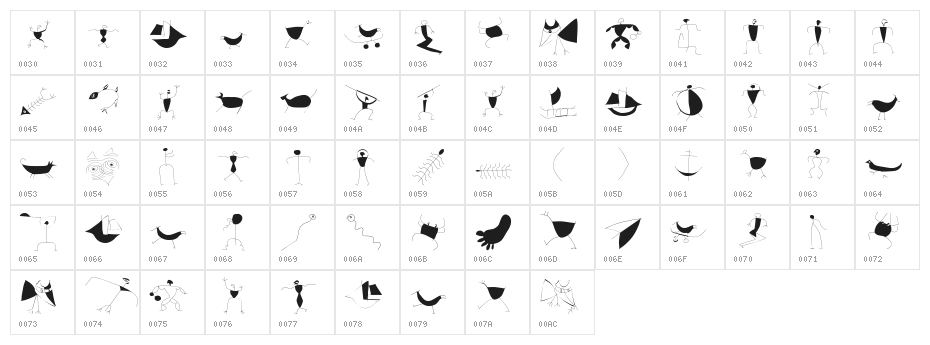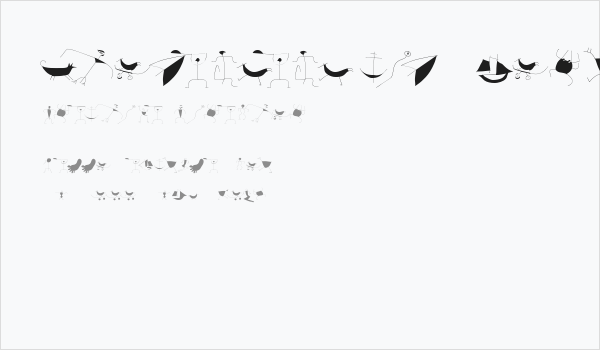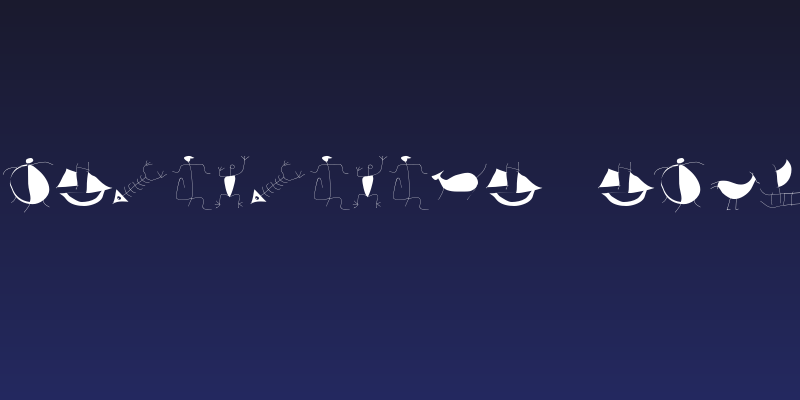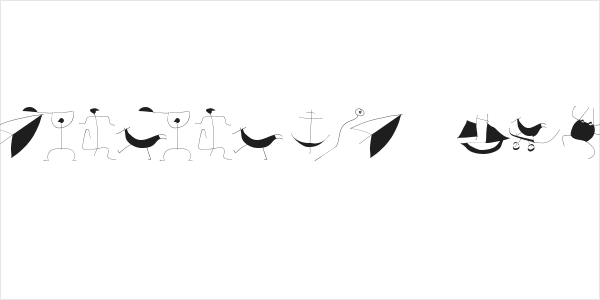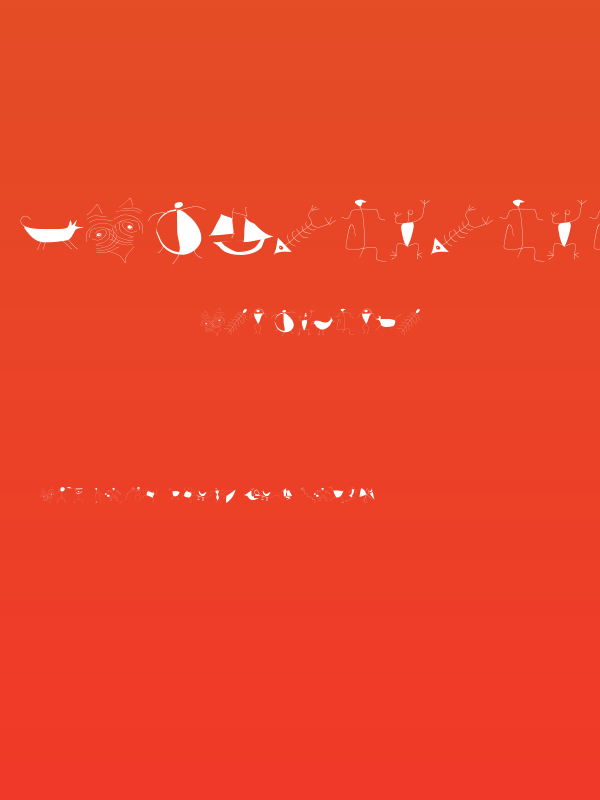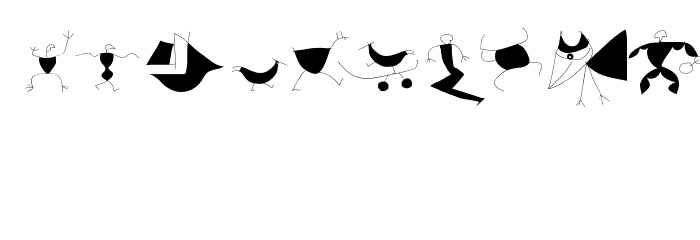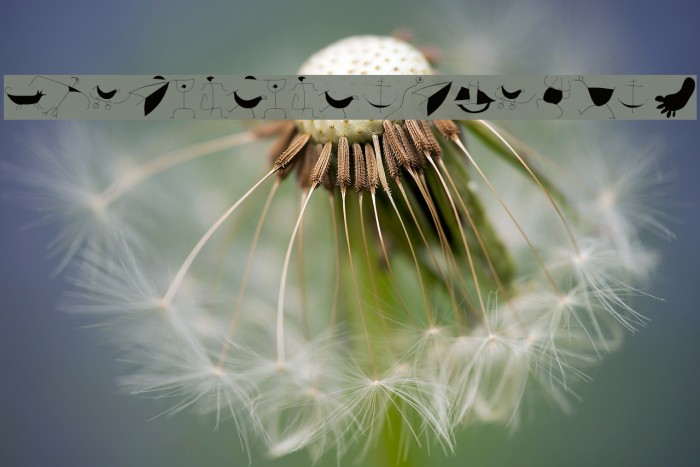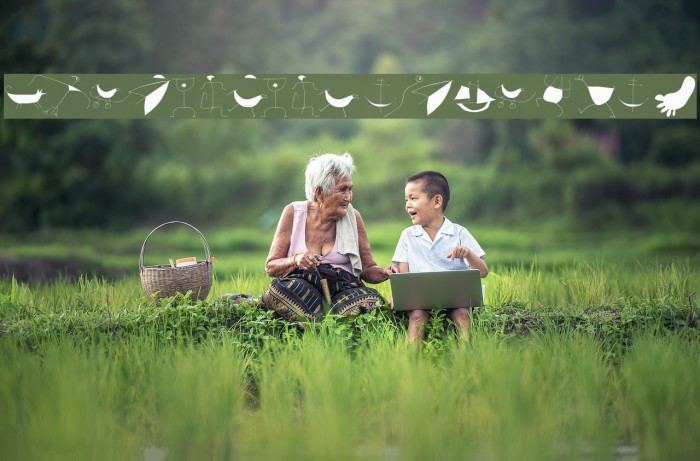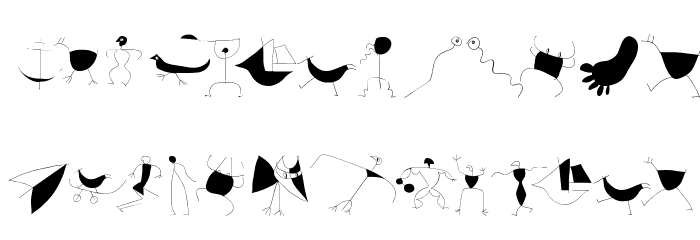
StoneAgeAgain-Normal Font
StoneAgeAgain-Normal Description
This font is a highly creative and abstract representation, resembling a collection of playful, whimsical characters and shapes. Each character is uniquely designed with a combination of geometric forms and organic lines, creating a sense of movement and dynamism. The font features a mix of bold and thin strokes, with a playful and artistic flair that makes it stand out. The characters appear to be inspired by primitive art or cave drawings, giving it a raw and expressive quality. This font is not suitable for traditional text but serves as an artistic statement or decorative element.
| Use Case | Logos, Artistic displays, Posters |
| Proposed Projects | Ideal for artistic projects, creative posters, unique branding, or any design requiring a bold, artistic statement. |